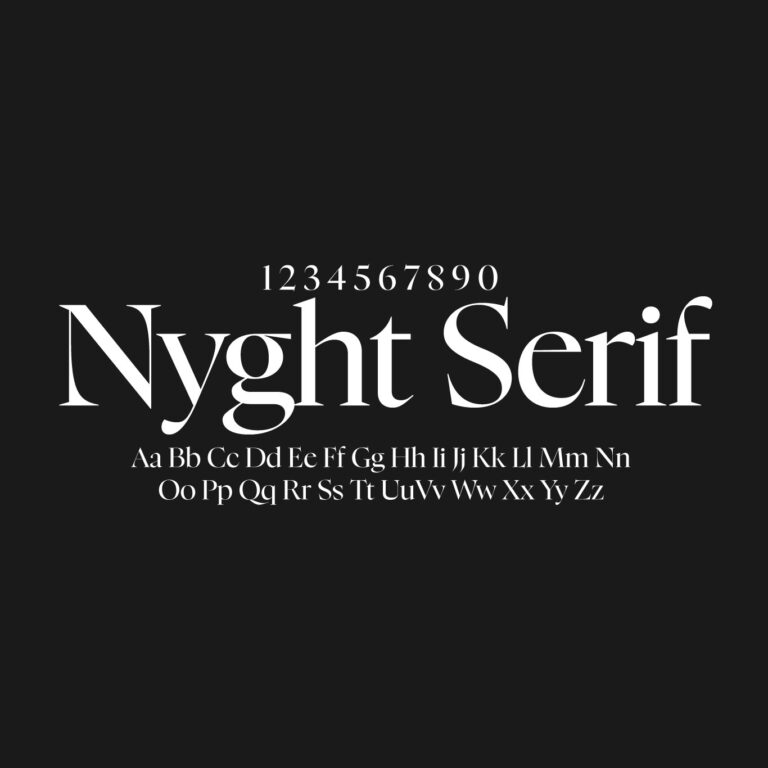
Nyght Serif is a contemporary serif typeface designed by Maksym Kobuzan. It combines smooth curves with sharp serifs and spurs, giving it a distinctive editorial and display-focused character. The font works well for posters, magazine titles, book covers, fashion layouts, branding, packaging, invitations, website headings and expressive typography projects.
Category: Contemporary Serif / Display Serif
Designer: Maksym Kobuzan